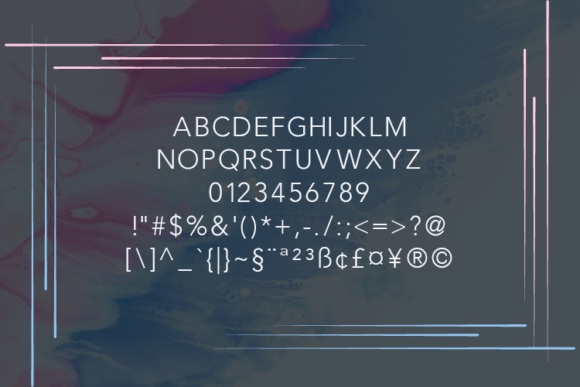
Gothic Thin Font: Elevate Your Designs with Modern Elegance
In the world of typography, fonts play a crucial role in conveying the tone and aesthetic of a design. For designers and crafters seeking a modern and elegant sans serif font, Gothic Thin is an excellent choice. This versatile font is perfect for a wide range of projects, from headings to smaller body text, and pairs beautifully with script and handwritten fonts.
What is Gothic Thin Font?
Gothic Thin is a contemporary sans serif font designed to bring a touch of sophistication to your designs. Its clean lines, minimalist aesthetic, and thin strokes create a sleek and modern look that is perfect for designers seeking a elegant typography solution. The font’s simplicity and clarity make it highly legible, even at smaller font sizes.
Key Features of Gothic Thin Font
- Modern and Elegant Design: Gothic Thin boasts a sleek and contemporary design that is perfect for designers seeking a sophisticated typography solution.
- Sans Serif Font: The font’s sans serif design ensures that your text remains clean and uncluttered, making it perfect for headings and body text.
- High Legibility: Gothic Thin’s clear and simple design ensures that your text remains highly legible, even at smaller font sizes.
- Pairs Well with Script and Handwritten Fonts: The font’s elegant design makes it an excellent pairing with script and handwritten fonts, adding a touch of sophistication to your designs.
Use Cases for Gothic Thin Font
Gothic Thin is a versatile font that can be used in a wide range of design projects, including:
- Headings and Titles: The font’s bold and elegant design makes it perfect for headings and titles, adding a touch of sophistication to your designs.
- Body Text: Gothic Thin’s high legibility and clean design make it suitable for smaller body text, ensuring that your content remains easy to read.
- Branding and Logo Design: The font’s modern and elegant design makes it an excellent choice for branding and logo design, helping to create a sophisticated and professional image.
- Web Design: Gothic Thin’s clean and simple design makes it perfect for web design, ensuring that your website remains modern and visually appealing.
Tips for Using Gothic Thin Font
To get the most out of Gothic Thin, consider the following tips:
- Pair with Script and Handwritten Fonts: Combine Gothic Thin with script and handwritten fonts to add a touch of elegance and sophistication to your designs.
- Experiment with Font Sizes: Gothic Thin’s high legibility makes it suitable for a wide range of font sizes, from headings to body text.
- Use for Branding and Consistency: Use Gothic Thin consistently across your designs to create a professional and cohesive brand image.
Gothic Thin is a modern and elegant sans serif font that is perfect for designers and crafters seeking a sophisticated typography solution. Its clean lines, minimalist aesthetic, and high legibility make it suitable for a wide range of design projects, from headings to smaller body text. With its versatility and pairing possibilities, Gothic Thin is an excellent addition to any designer’s font library.